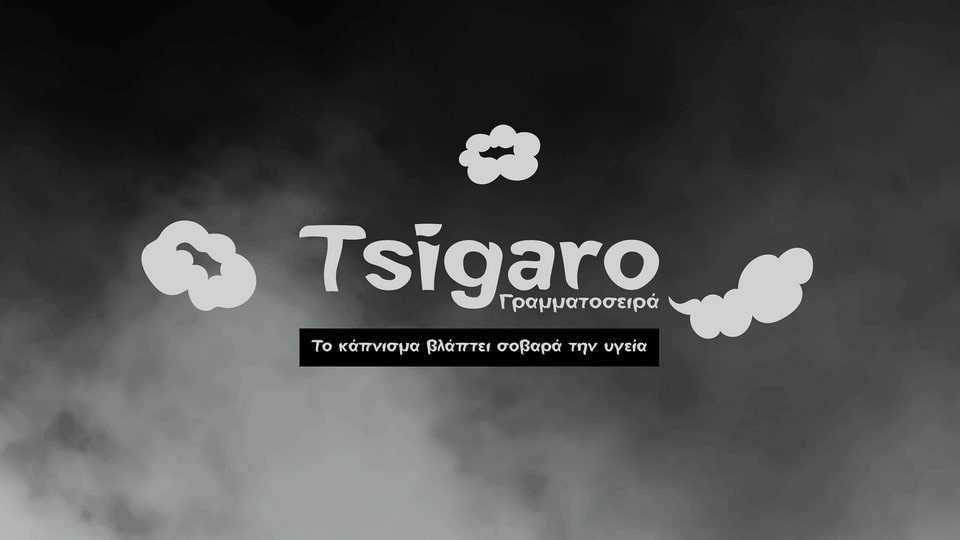
Download Tsigaro font, a handcrafted typeface filled with a bold yet playful vibe. Add an eye-catching and authentic touch to your designs with Tsigaro font.
Designer: Christos Lentzaris